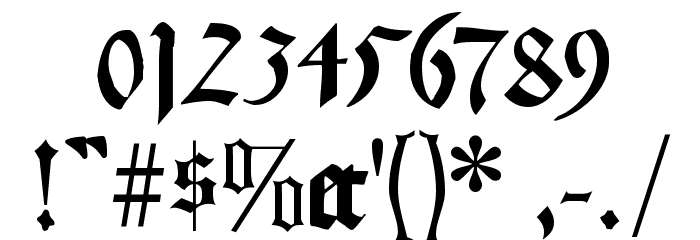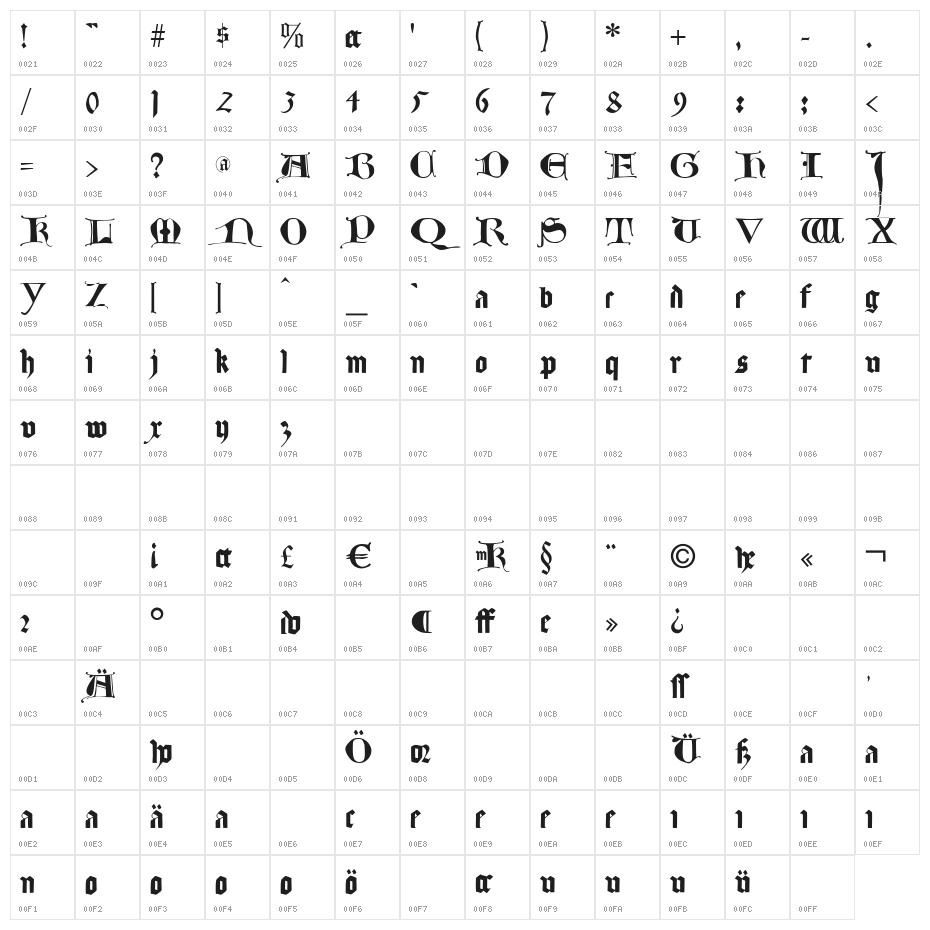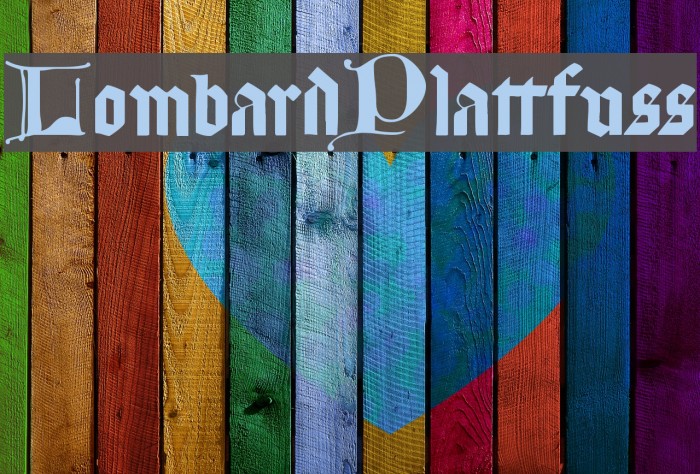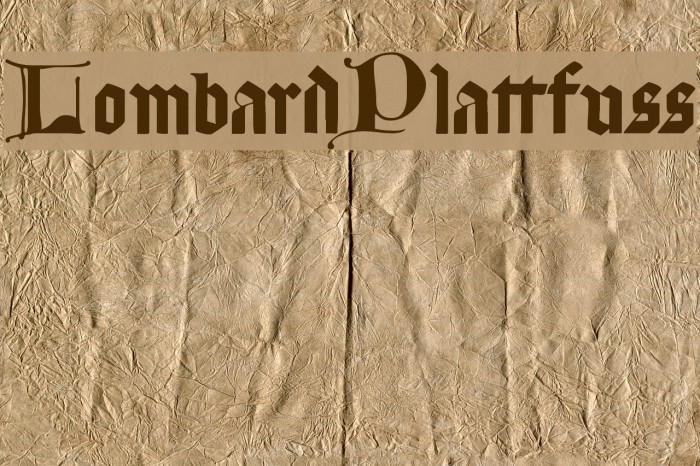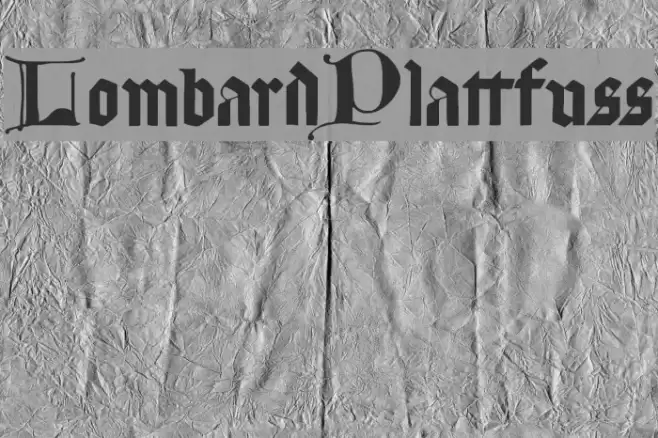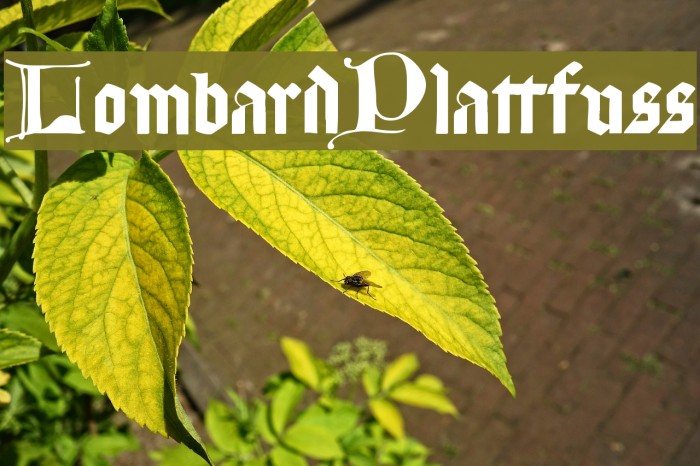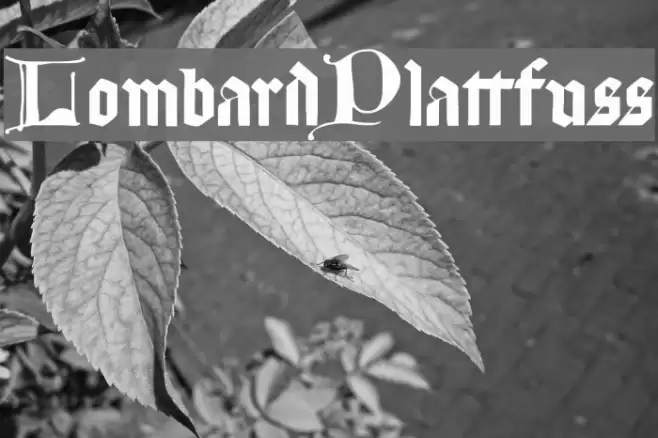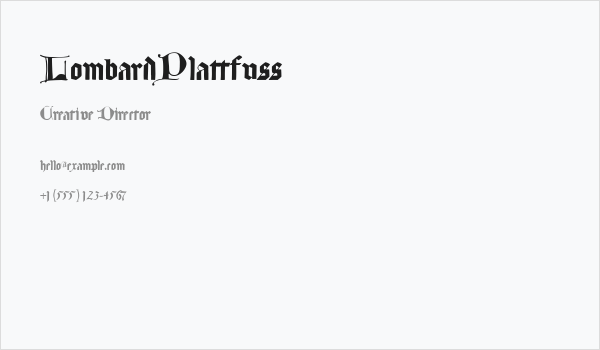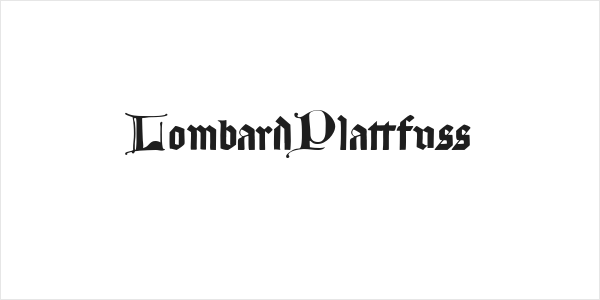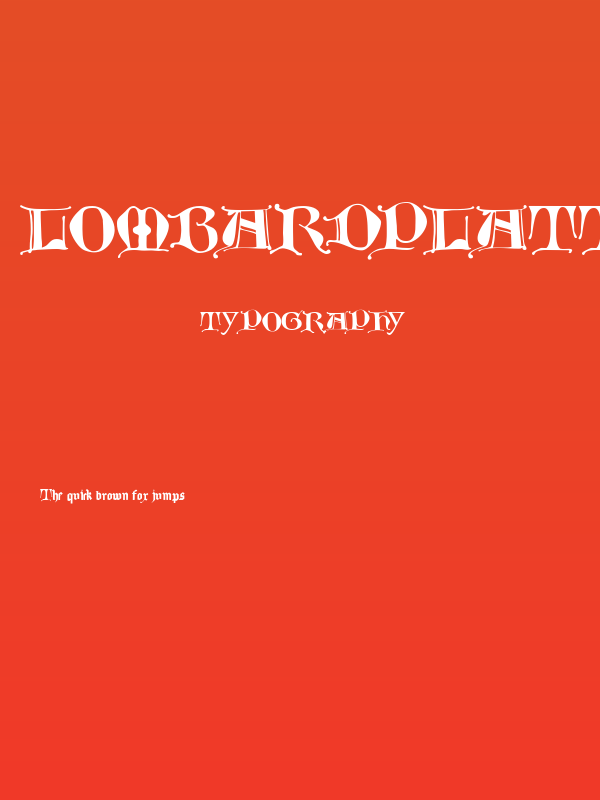
LombardPlattfuss Font
LombardPlattfuss Description
This font is a striking example of Blackletter style, characterized by its intricate and ornate design. The uppercase letters feature sharp, angular lines with decorative flourishes, giving them a medieval and gothic appearance. The lowercase letters maintain a similar aesthetic, with bold strokes and pointed edges that enhance the dramatic effect. Numbers and special characters are crafted with the same attention to detail, ensuring consistency throughout the typeface. The overall look is both historical and artistic, making it suitable for projects that require a touch of elegance and tradition.